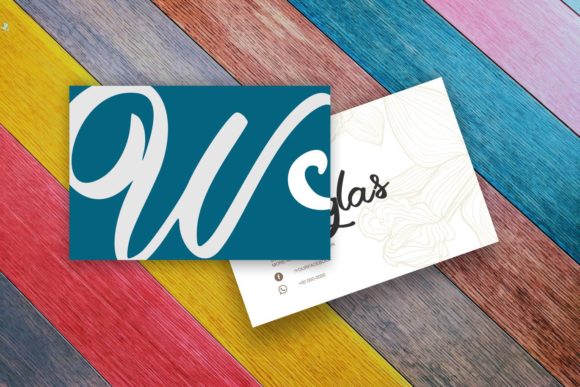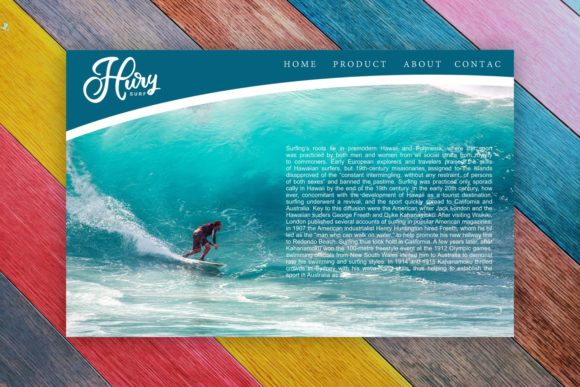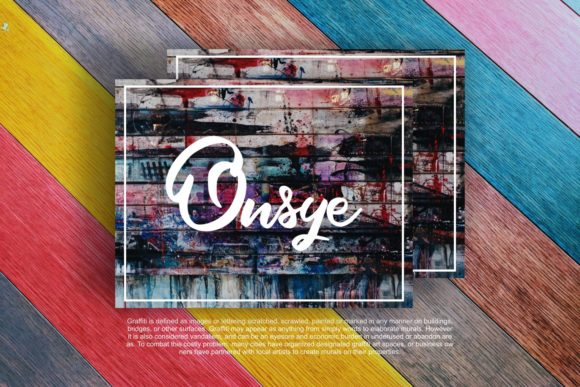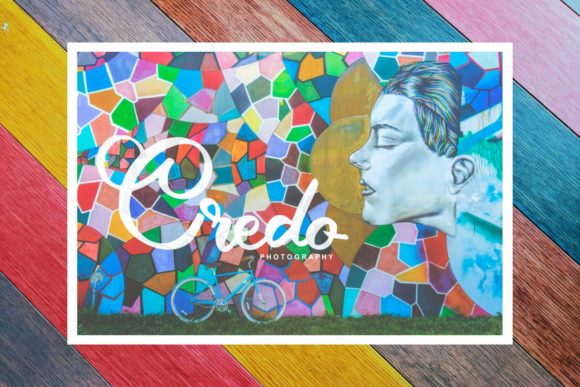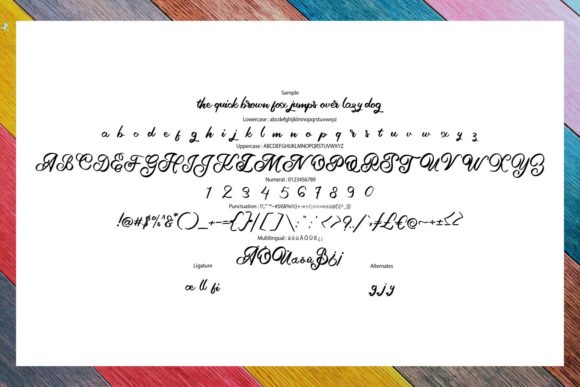
Aella Font
About Aella Font
Aella is a modern and elegant script font. It has alternative and special characters that will give a unique touch to any craft project.